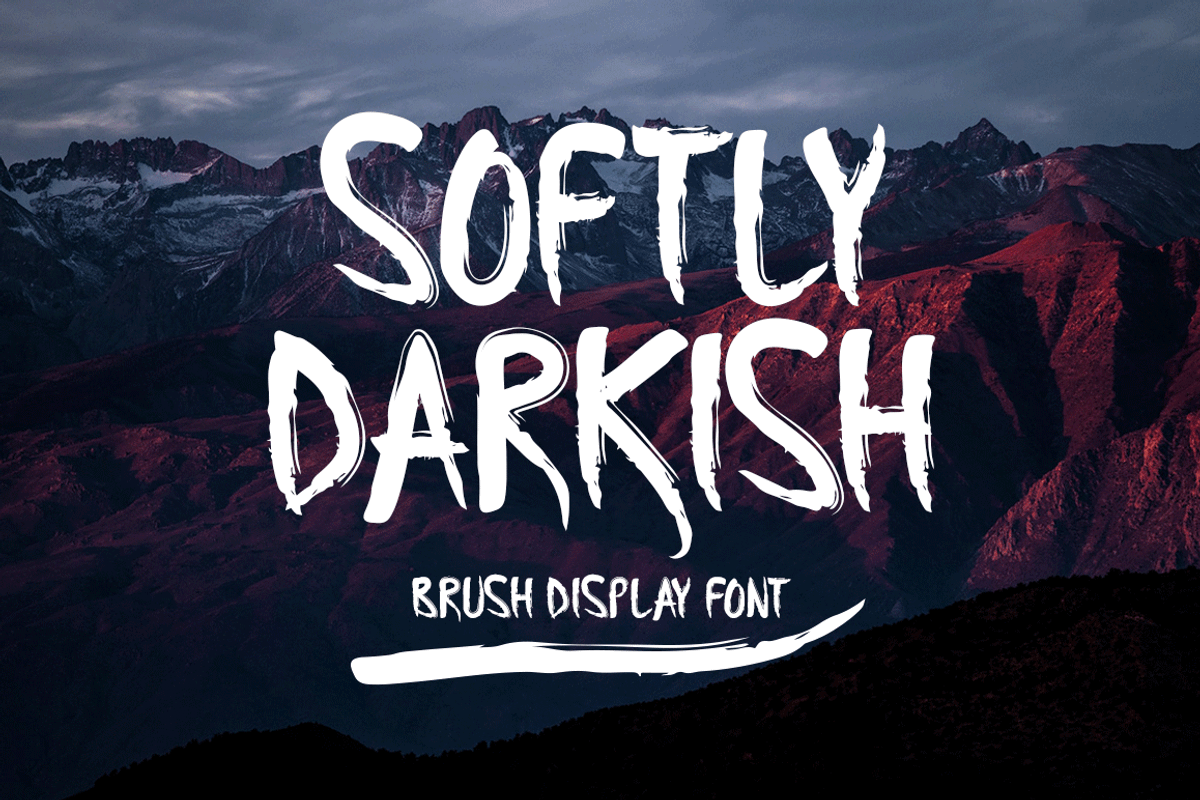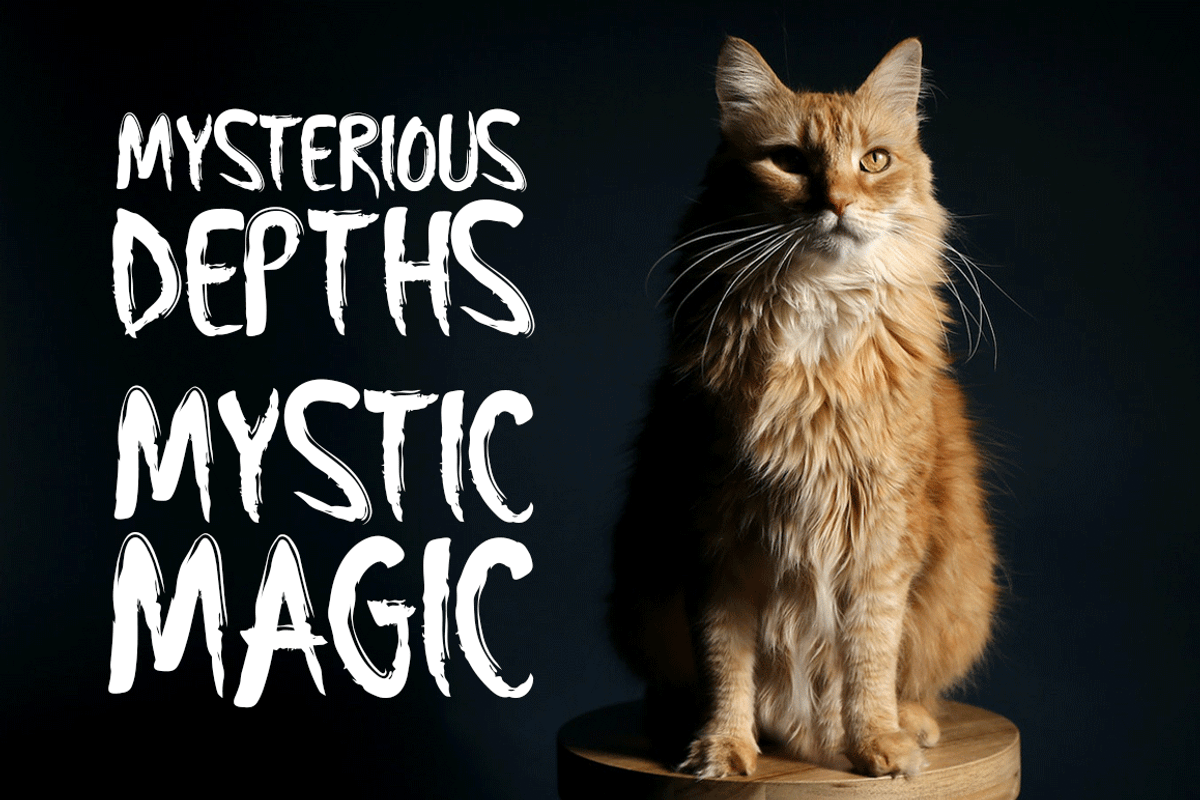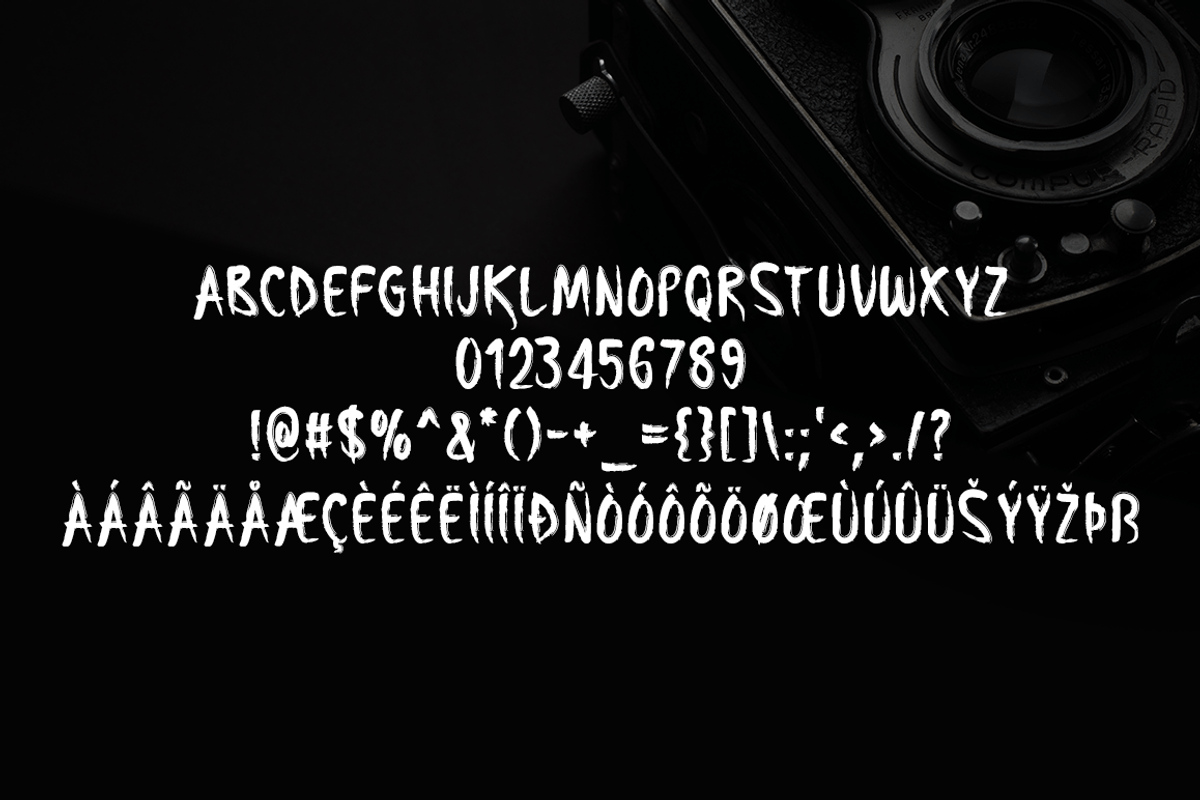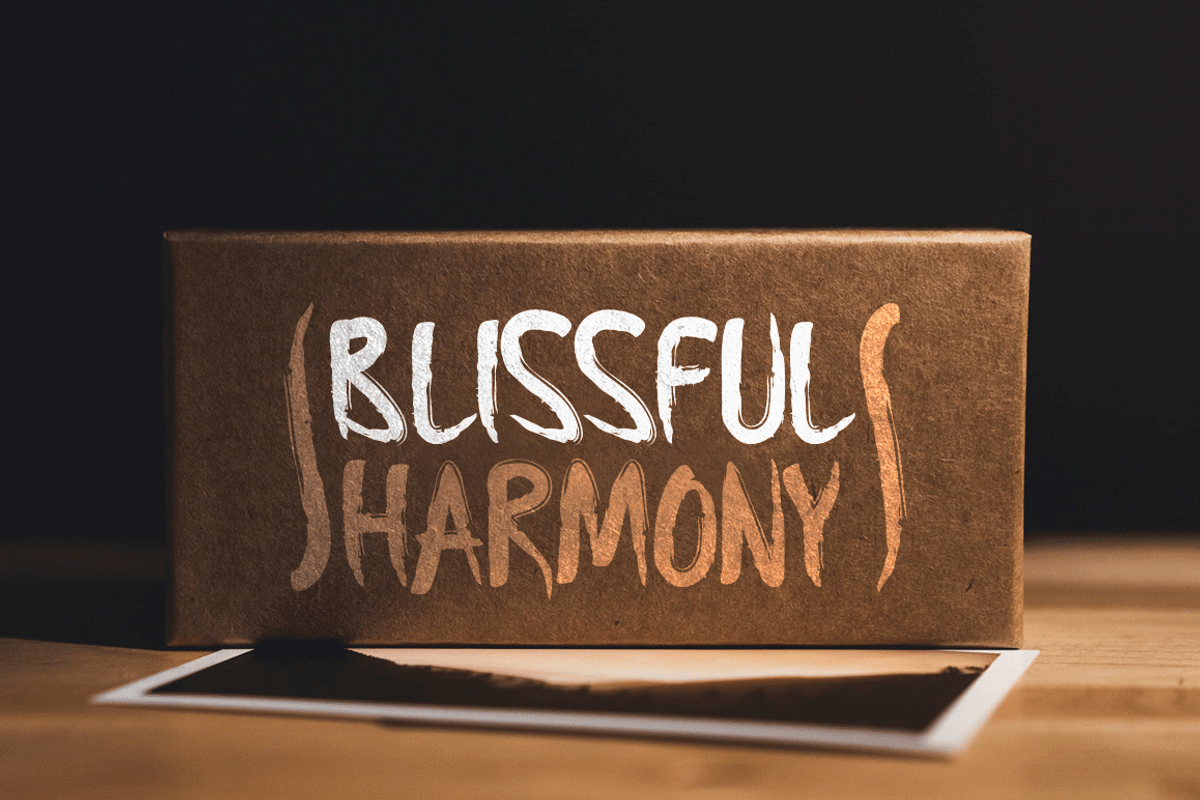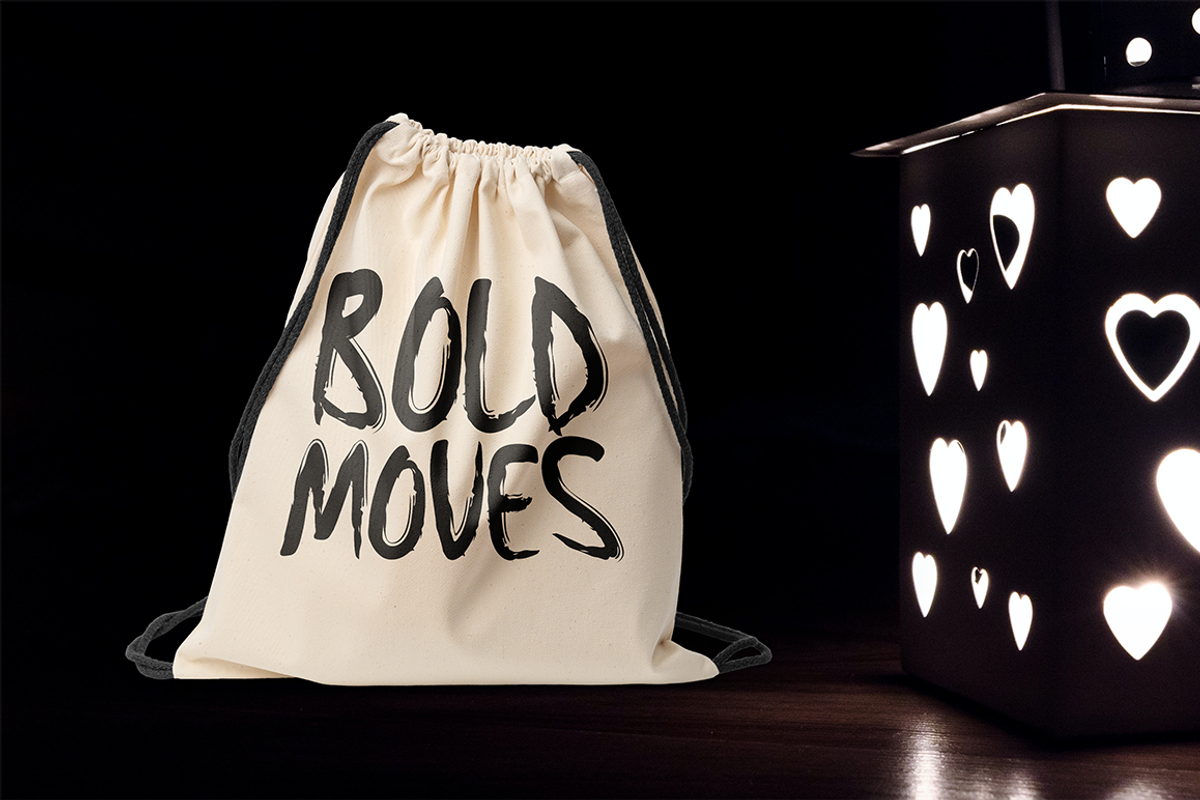
Softly Darkish Typeface
Introducing Softly Darkish!
Softly Darkish is a brush display font. This font is ideal for use in a variety of contexts, including stationary, logos, t-shirts, paper, print design, website headers, picture frames, flyers, album covers, posters, and image sliders.
Includes a range of multilingual support